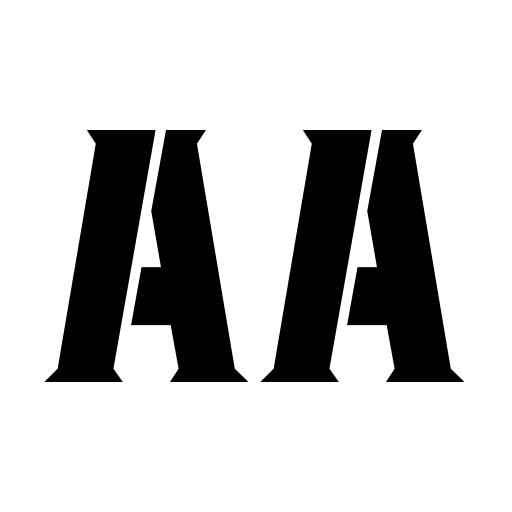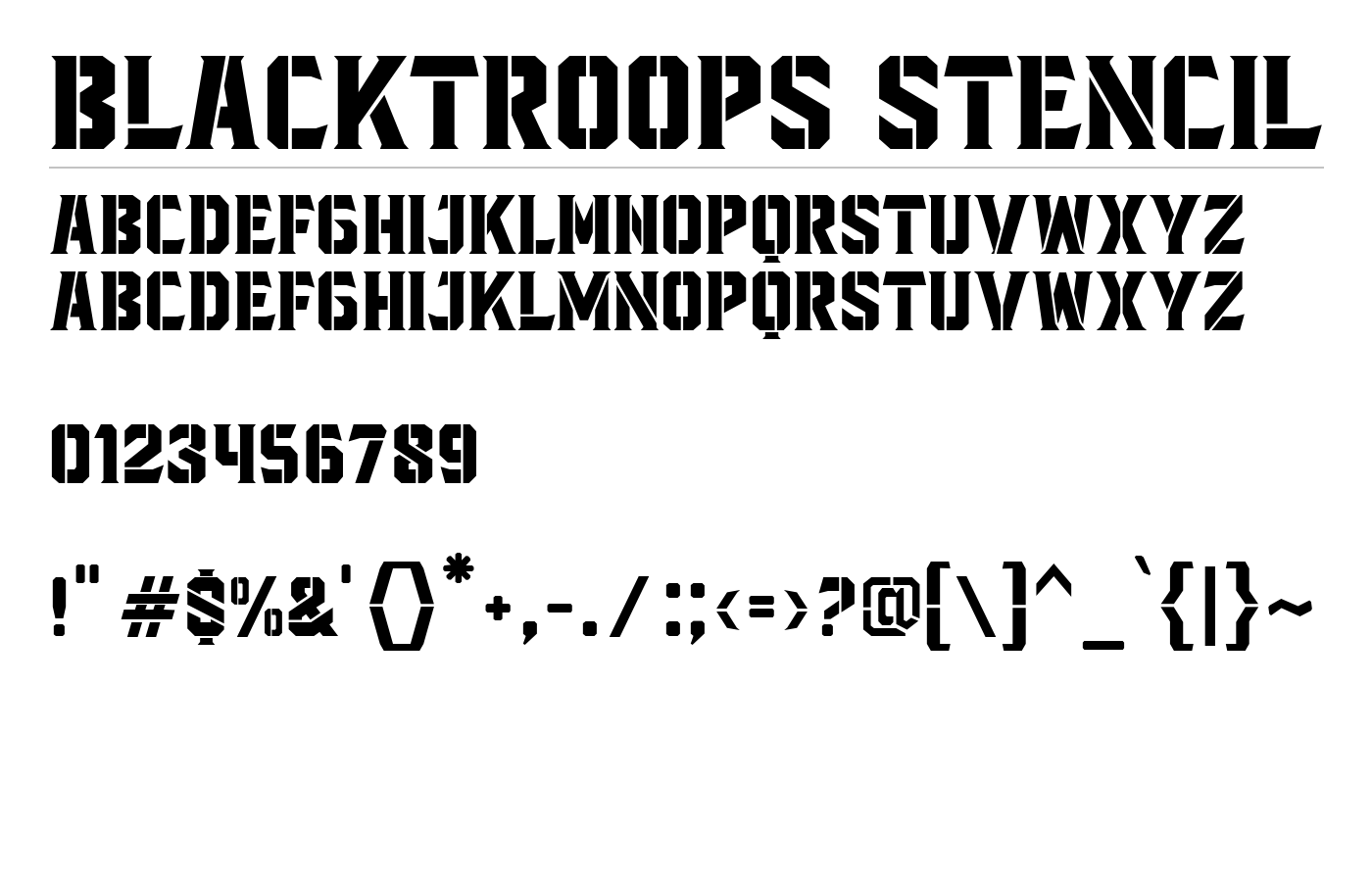
Blacktroops Stencil is a bold, condensed stencil typeface with sharp, angular cuts that create a striking military-inspired look. Its strong geometric shapes and high contrast between solid and negative spaces make it perfect for impactful headlines, logos, and branding that demand attention with a rugged, authoritative personality. This font works especially well in designs needing a bold, utilitarian style that stands out with clarity and power.
Blacktroops Stencil Font
About Blacktroops Stencil Font